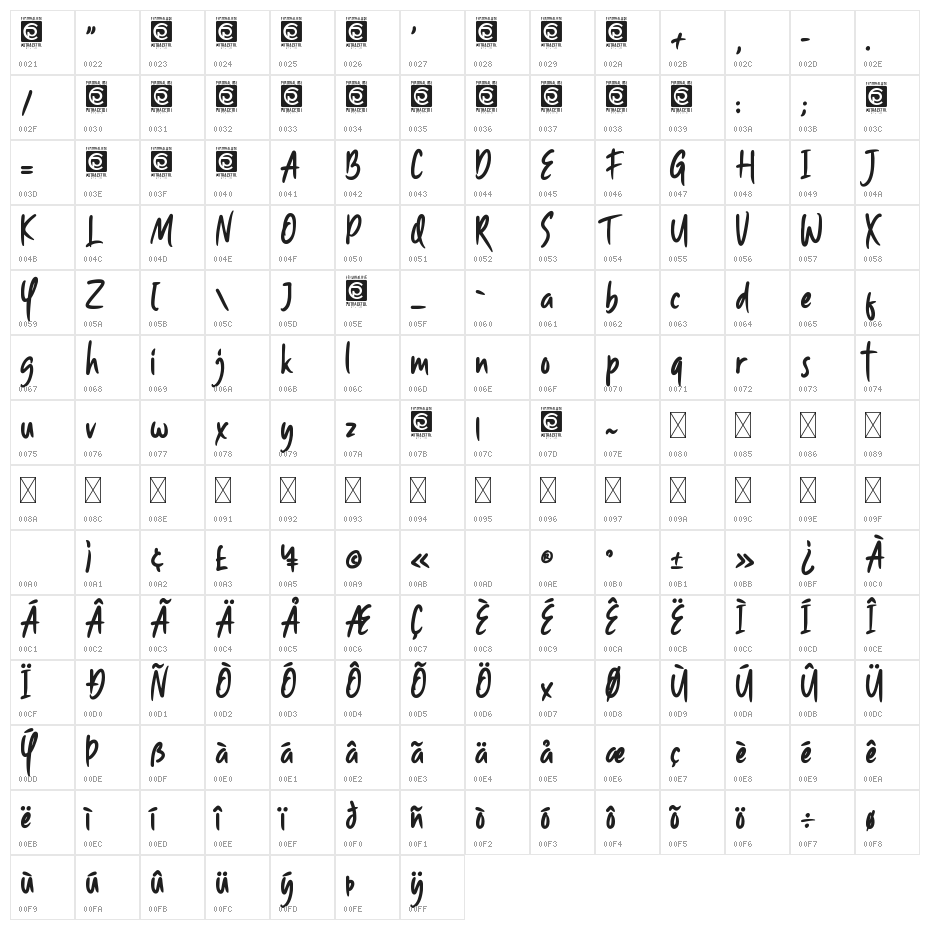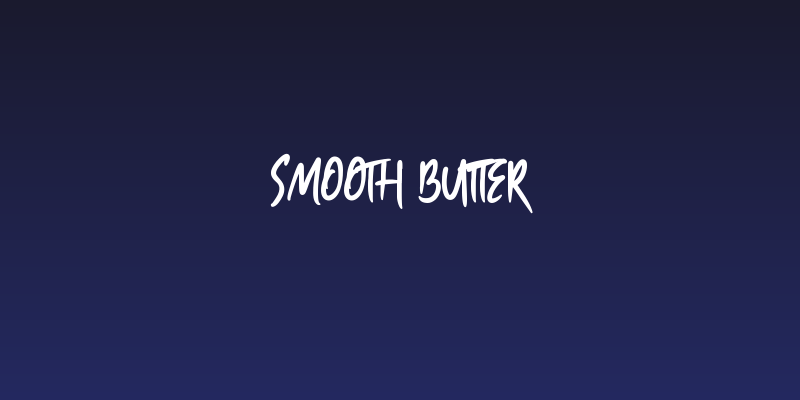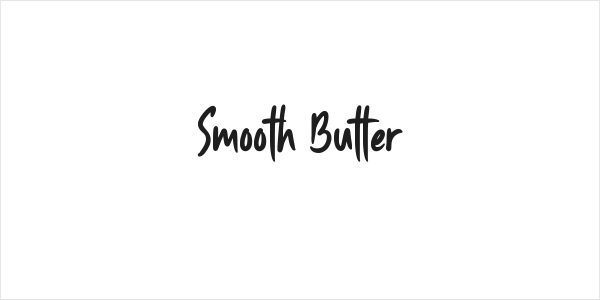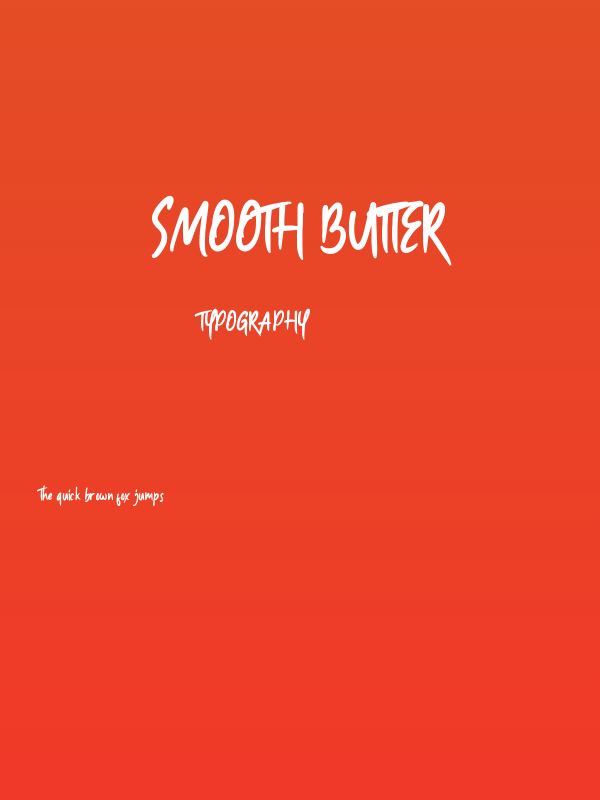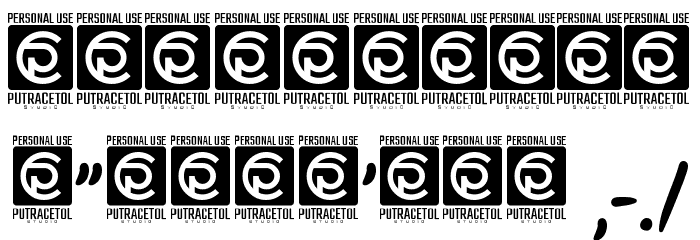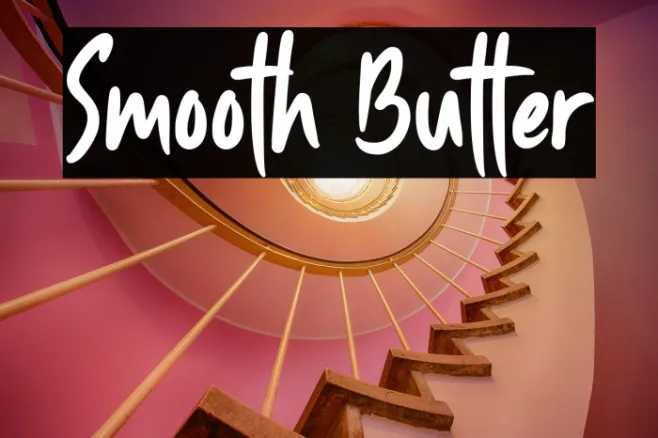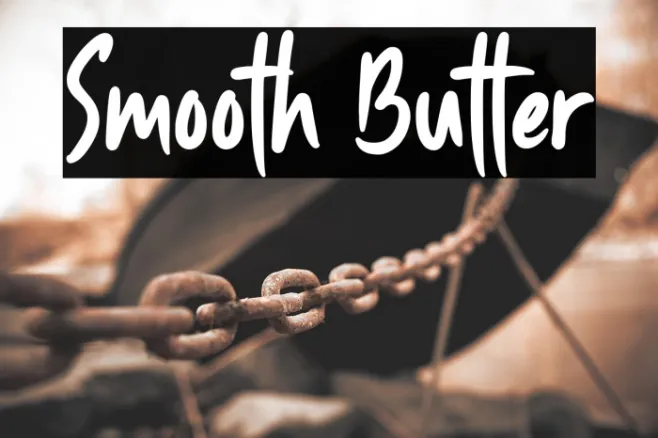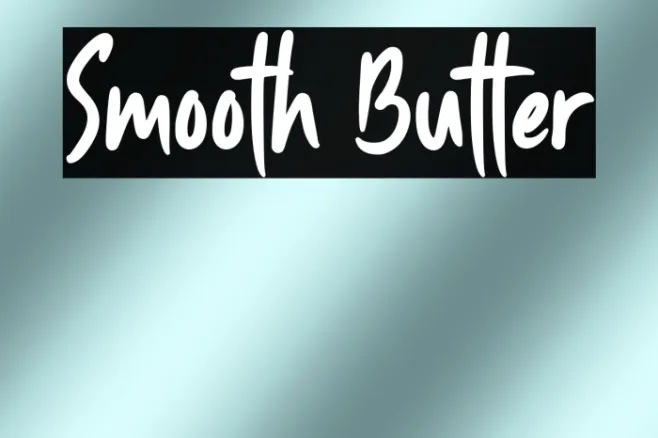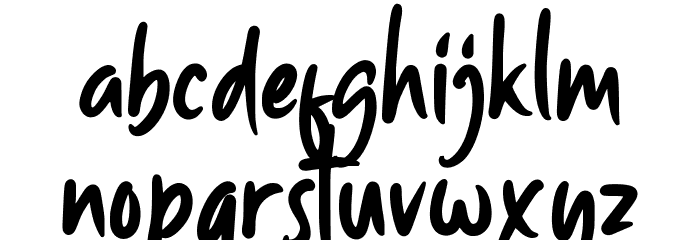
Smooth Butter Font
Smooth Butter Description
This font features a bold, handwritten style with a playful and energetic appearance. The letters are slightly slanted, giving a dynamic and informal feel. The strokes are thick and consistent, with rounded edges that add a friendly touch. The uppercase and lowercase letters maintain a cohesive look, while the numbers and special characters are designed to match the overall style. This font is ideal for projects that require a personal, approachable, and lively aesthetic.
| Proposed Projects | Great for greeting cards, posters, social media graphics, and branding that requires a personal touch. |